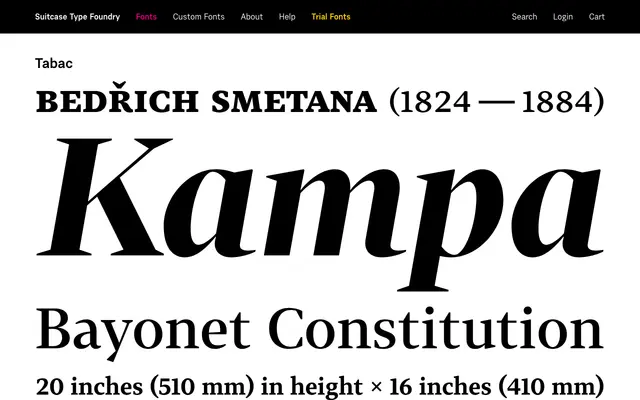
A large superfamily from Suitcase Type Foundry spanning serif, sans, slab and mono branches across multiple optical sizes.
The Tabac collection groups six related families under one roof, covering serif, sans-serif, slab, and monospaced designs alongside optical variants tuned for small text (Micro), large display (Big) and high-contrast glamour (Glam). The breadth of the system makes it practical for editorial and brand work where a single coherent type palette needs to perform across very different contexts and sizes. With over 100 fonts in total it is one of the more thoroughly developed Central European superfamilies available today.
The Tabac family anchors around a serif design with related sans and slab branches, suggesting a transitional or humanist serif at its core, given the breadth of companion styles including Glam and Micro optical variants.